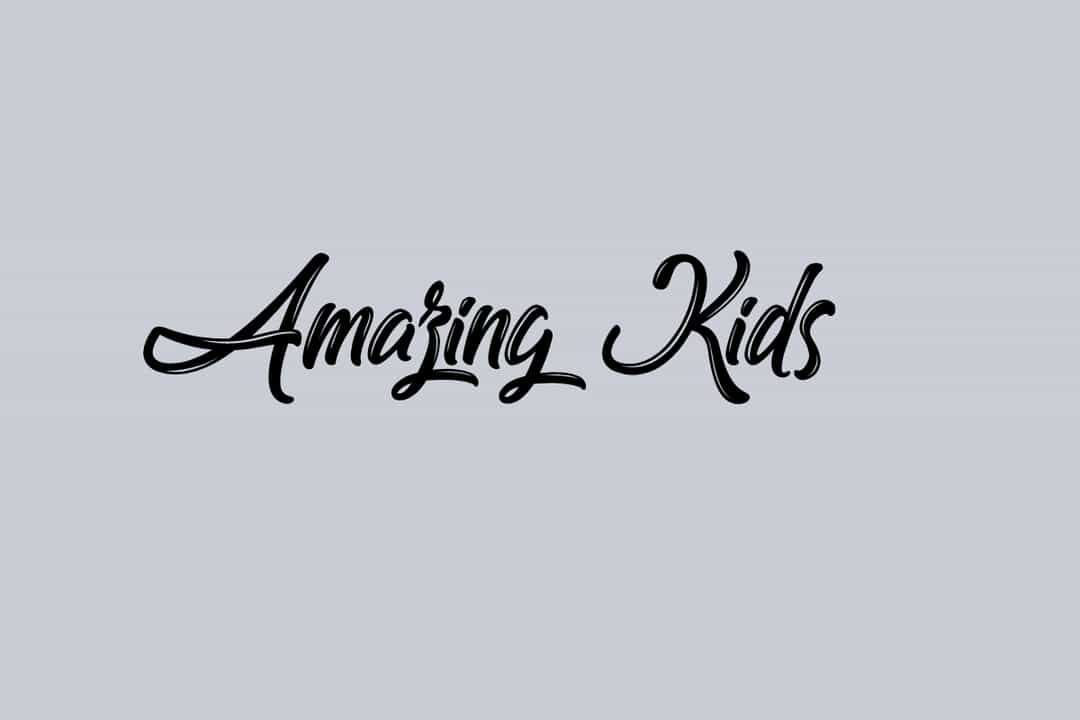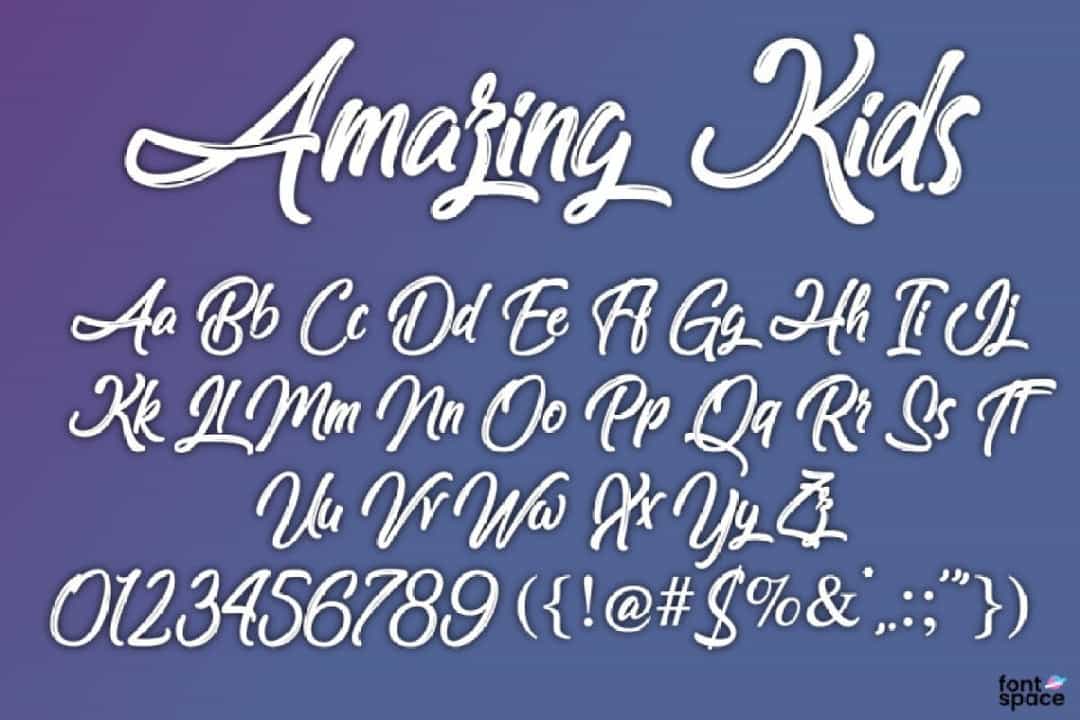
Discover Amazing Kids Font Free, part of the Brush collection—a versatile and unique font perfect for adding a personal touch to your projects. Download it for free and enjoy crafting designs with style, from invitations to social media posts. This font is available exclusively for personal use, giving you the freedom to create without limits. Unlock your creativity with Amazing Kids Font Free today!
Introducing Amazing Kids. Typhoon Type – Suthi Srisopha is the designer of this logo. Amazing Kids Font is a sort of font that is in the category of handwritten script fonts. It is versatile for every design requirement, logo, book cover title, t-shirts, poster and anything else.